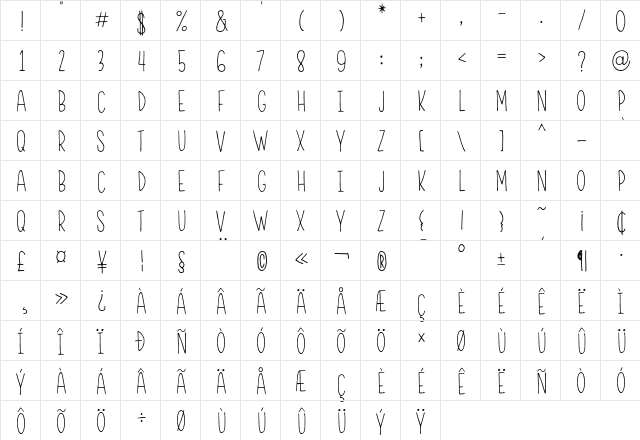
RWA Frontliner Regular
| Foundry | Rachel White Art |
| Designer | Rachel White |
Design Context for RWA Frontliner Typeface
RWA Frontliner takes a measured approach to typography — its balanced proportions and neutral character make it a reliable workhorse for both digital and print work.